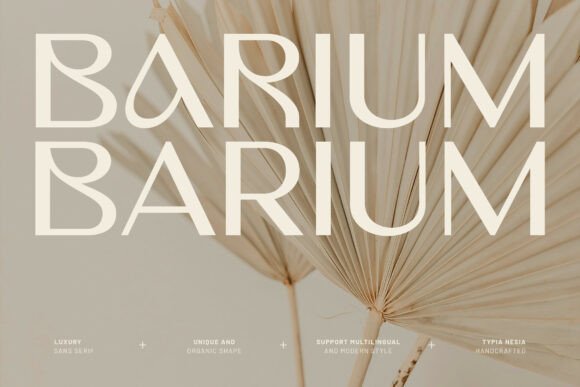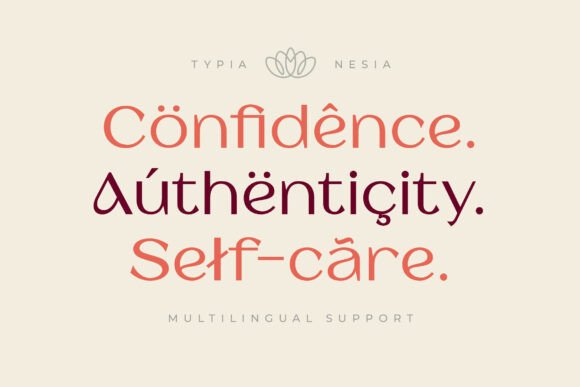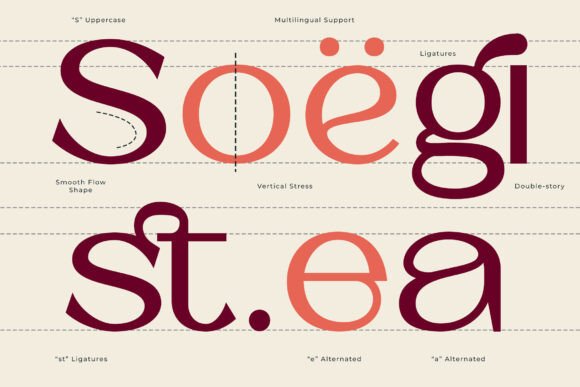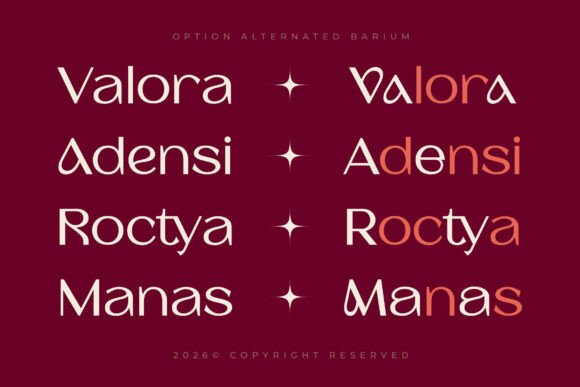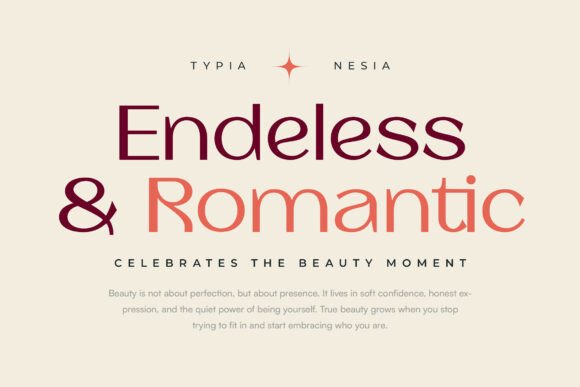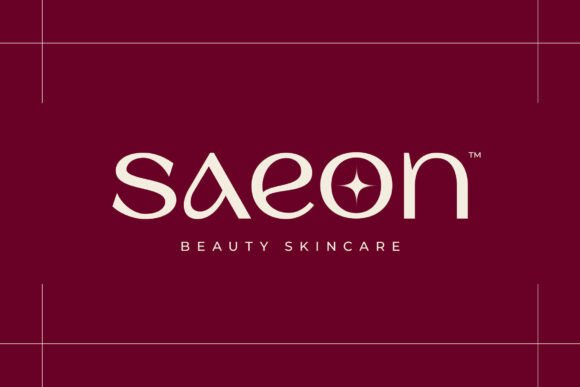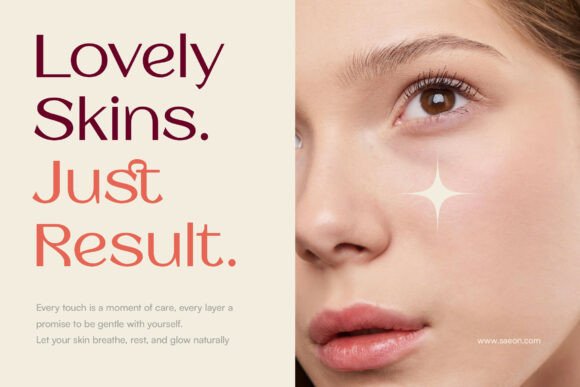
Unleashing Elegance: Discover the Timeless Beauty of Barium Font
Have you ever stared at a beautifully designed logo or invitation and felt an instant sense of awe and admiration? That’s exactly what happens when you incorporate the right font into your design. For those who crave luxury, sophistication, and a touch of modern beauty, there’s a font that stands out from the rest: Barium – a stunning sans serif font designed to evoke refinement and elegance.
Barium Font is more than just a typeface; it’s an experience that brings clarity and sophistication to any project. Whether you’re designing a logo, wedding invitation, or beauty brand, Barium’s clean lines, graceful curves, and well-balanced proportions make it the perfect choice. Its versatility and timeless appeal make it a valuable addition to any designer’s toolkit.
Barium Font Key Features
- Font Family: Barium is a sans-serif font family designed for digital use.
- Size: The font family includes a range of weights from Thin (100) to Black (900) and various styles.
- Resolution: Designed for high-resolution displays, with clear and crisp typography at resolutions up to 300 DPI.
- Unique Characteristics: Barium features a modern and clean design with subtle rounded edges, making it suitable for digital interfaces, web design, and mobile apps.
- Support: Supports a wide range of languages, including Latin, Cyrillic, and Greek scripts.
Barium Font Review
I recently had the chance to work with the Barium Font, and I must say, it’s a fascinating font. Let’s dive into what works well and what doesn’t.
- The unique design is definitely a conversation starter. Barium Font has an otherworldly feel that can add an interesting twist to any project.
- Its large x-height makes it a great choice for titles and headings, where readability is crucial.
- The font is highly legible, even at smaller font sizes, which is essential for body text.
- The font’s unconventional design can be overwhelming if used extensively throughout a project. Balance is key when working with Barium Font.
- It may not be the best choice for body text, especially in longer blocks of text, due to its high x-height and unusual letterforms.
Overall, I’d say Barium Font is a great addition to any designer’s toolkit. It’s perfect for projects where you want to add a touch of the unusual or make a bold statement. Just remember to use it sparingly and with a clear understanding of its strengths and limitations.
Barium Font is commonly used for:
- Titles and headings
- Custom typography projects
- Presentation and report design
- Unique and eye-catching designs
Alternatives to Barium Font